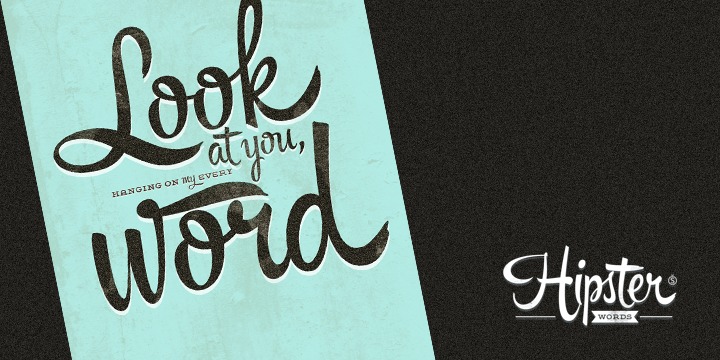
Hipster Script Pro is a beautiful attempt by Alejandro Paul to minimize the divide between manual and digital. The typeface is a result of eloquent brush lettering and digital imitation of nonstop painting. However, the overall look of this font is more than what a computerized commercial lettering process can deliver.
All of the alternates, swashes, and ligatures with apostrophes produced a quirky yet eye catching typeface. It helps in creating balanced union of modern illustration trends and impulsiveness of ancient ad lettering.